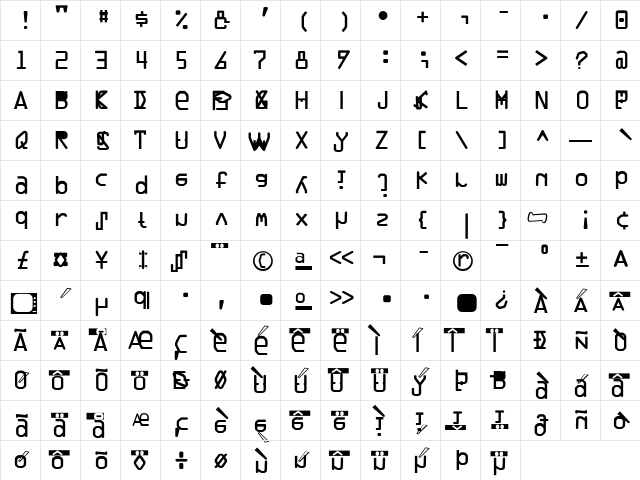
Trade01 Regular
Design Context for Trade01 Typeface
Trade01 offers clean, dependable letterforms without strong stylistic allegiance, making it a practical choice for designers who need flexibility.